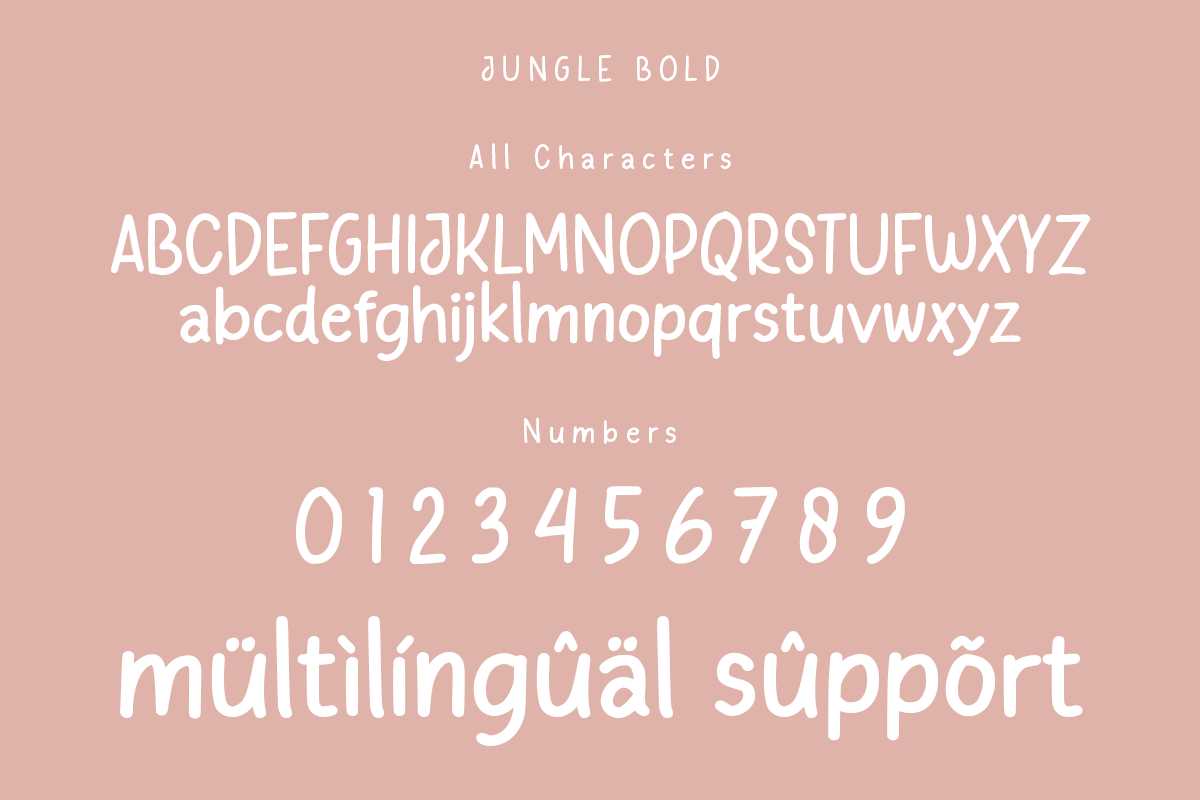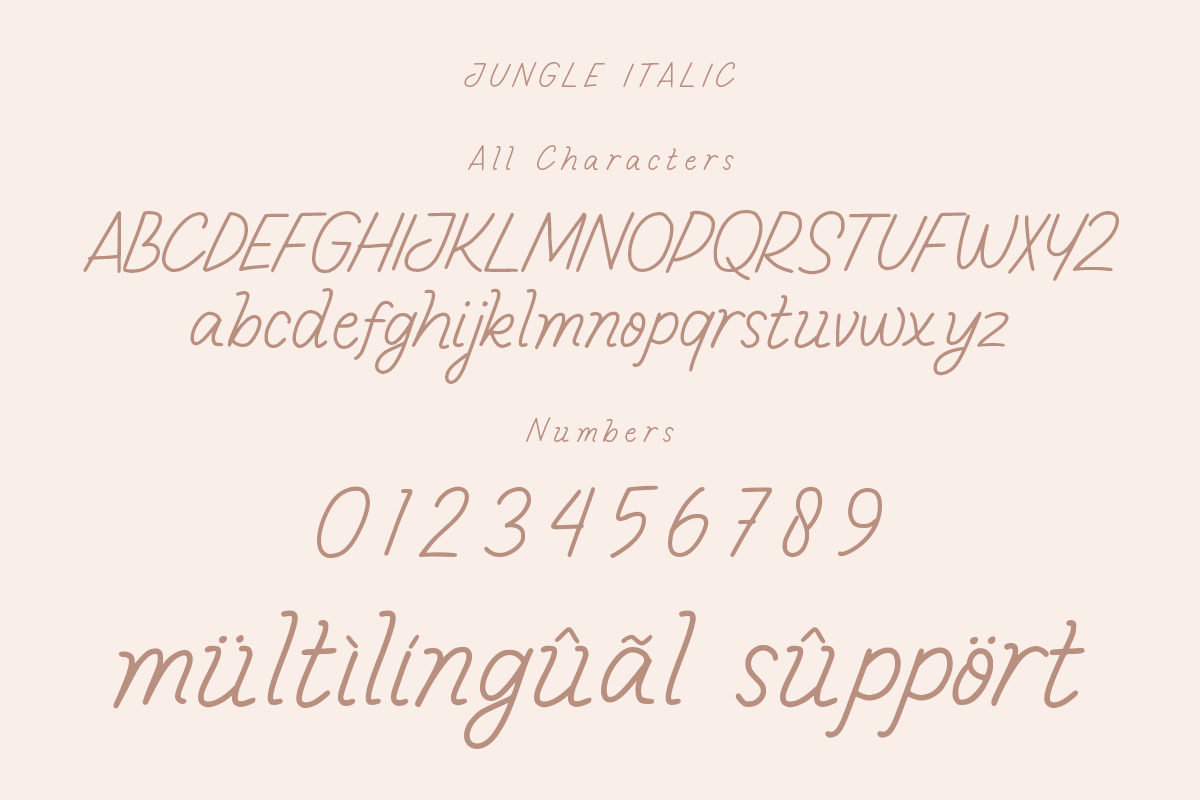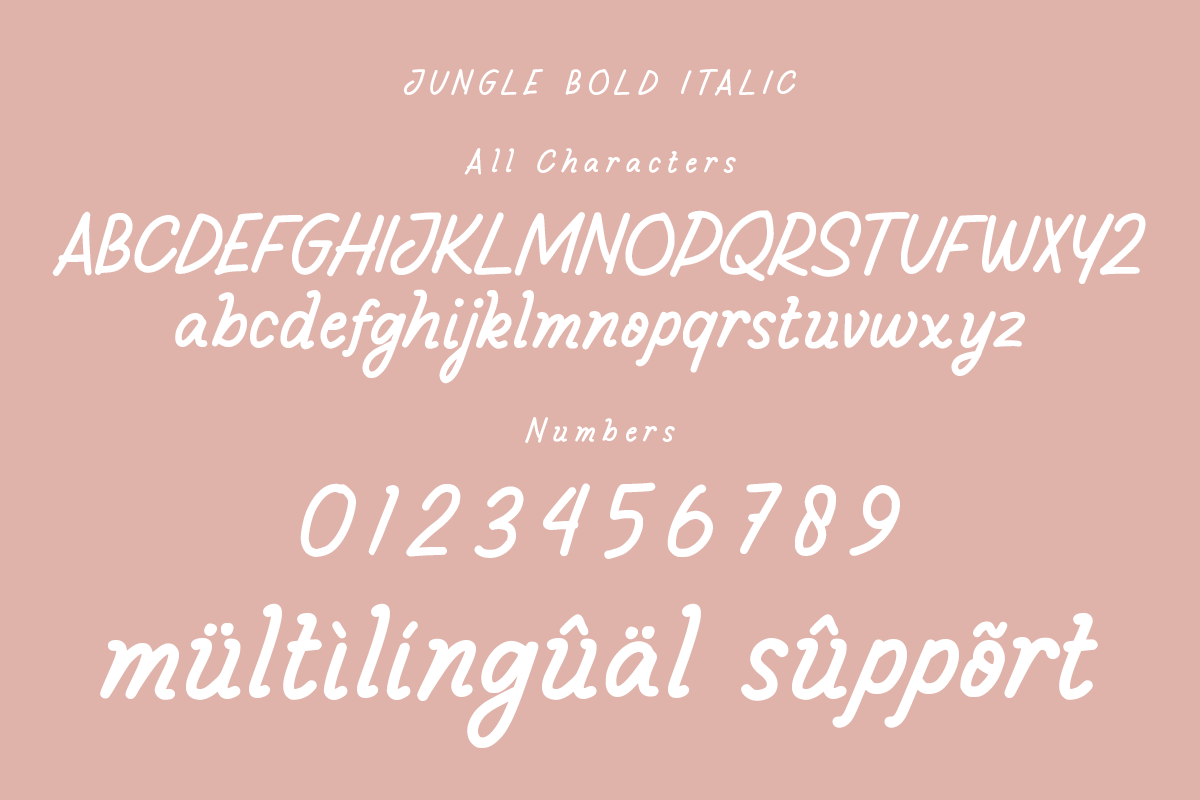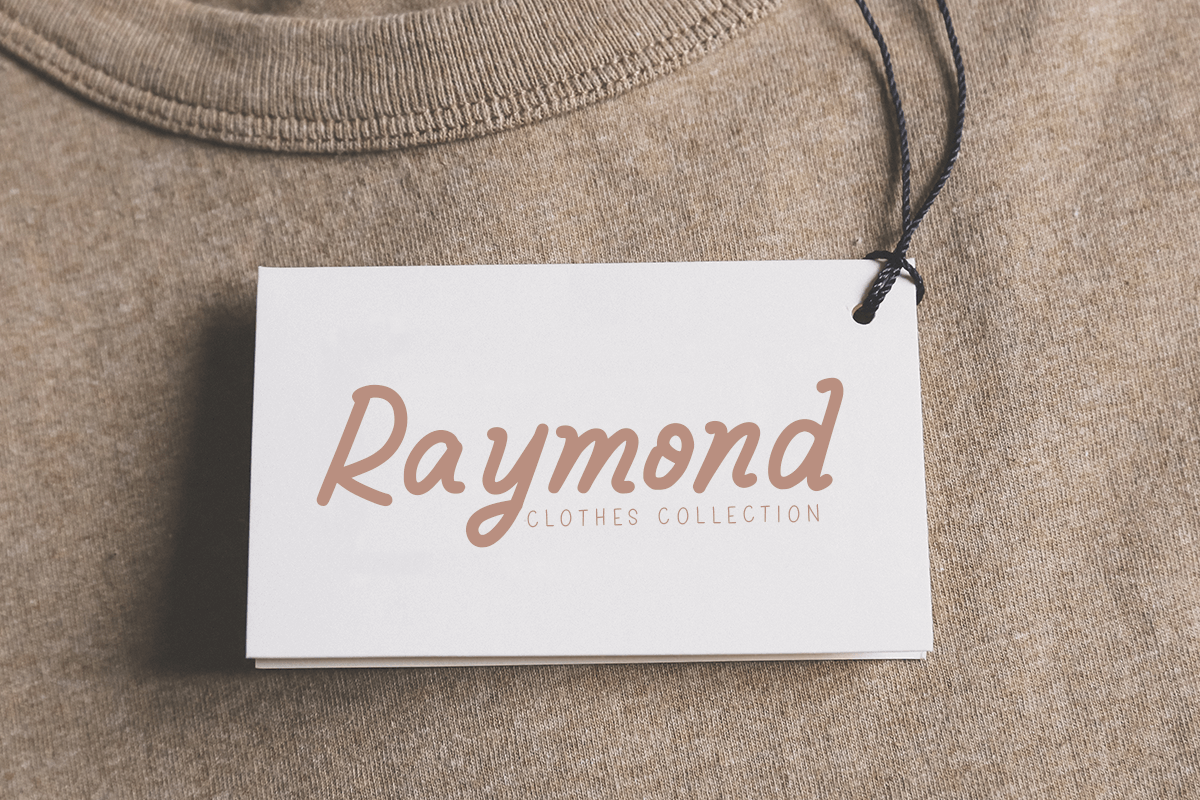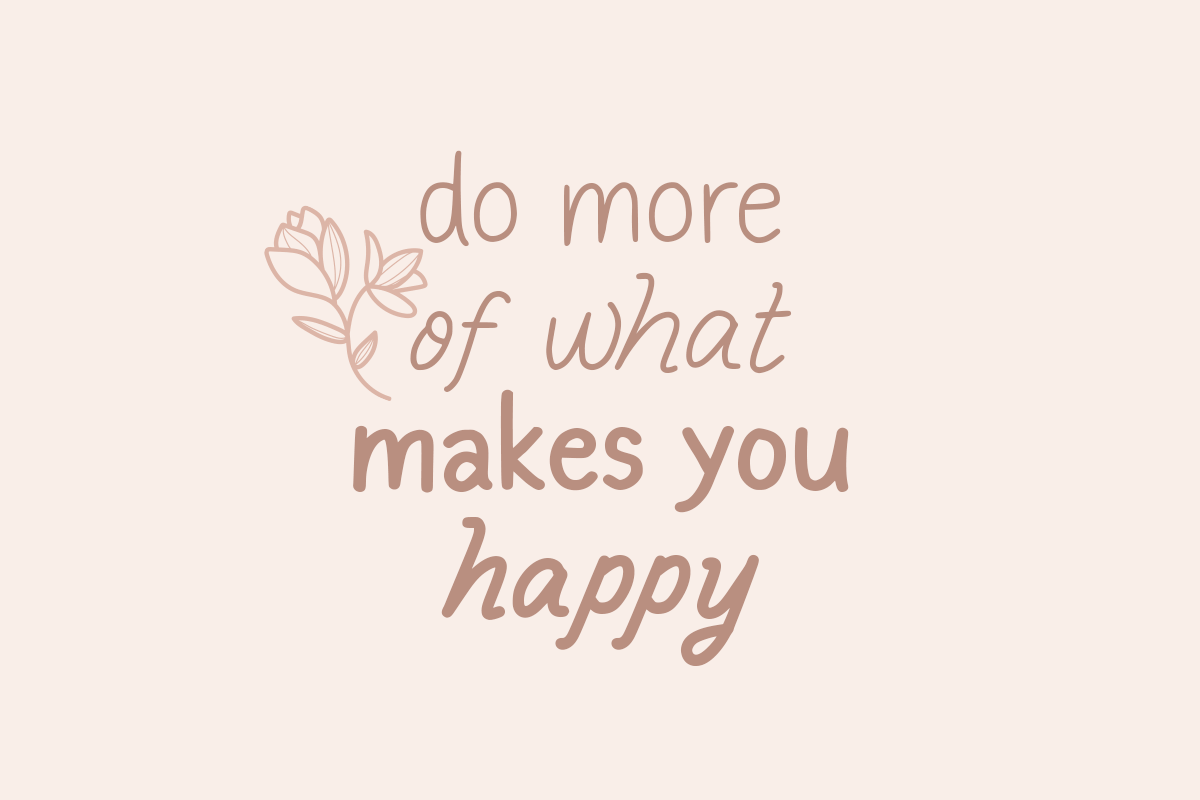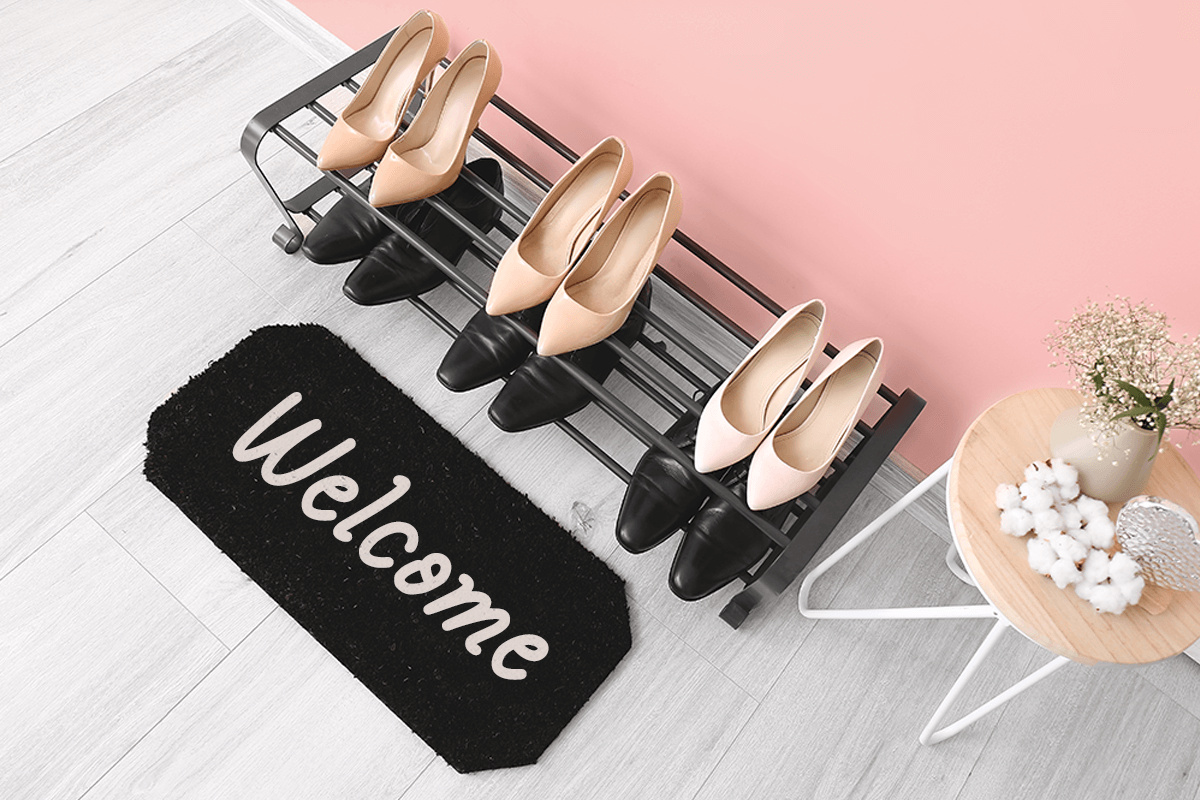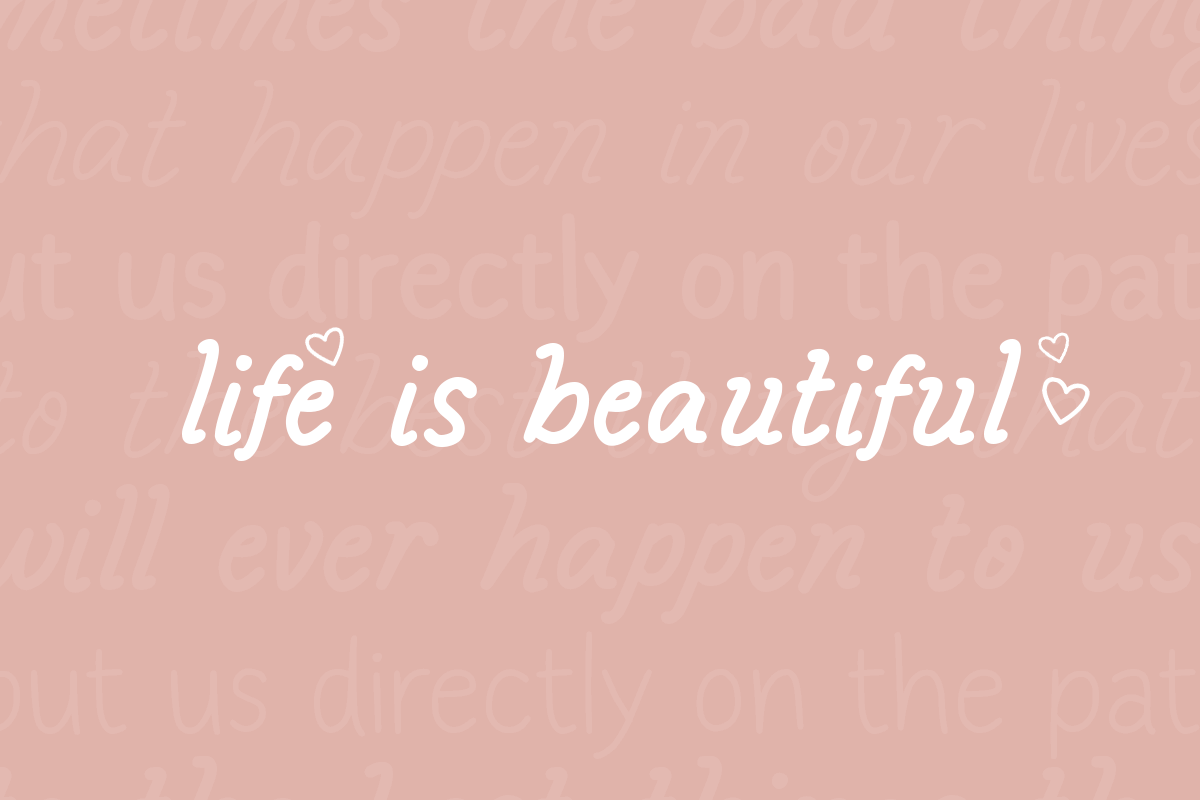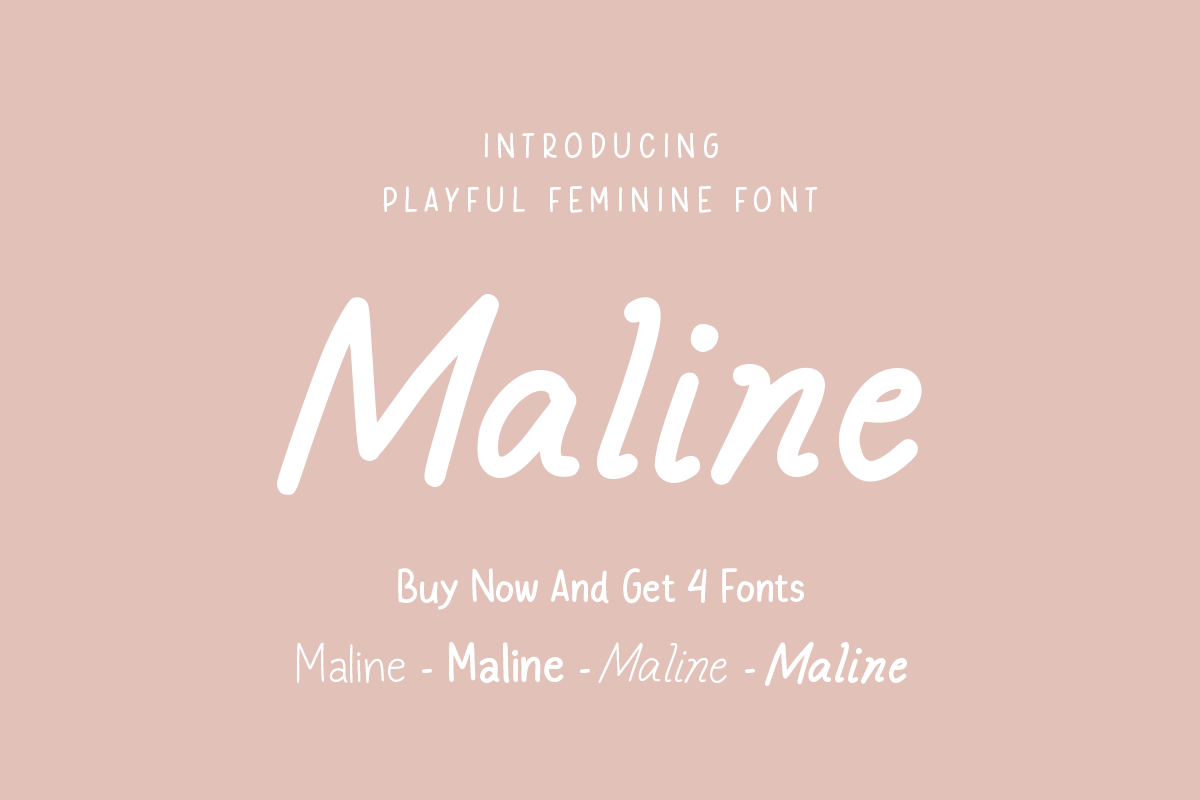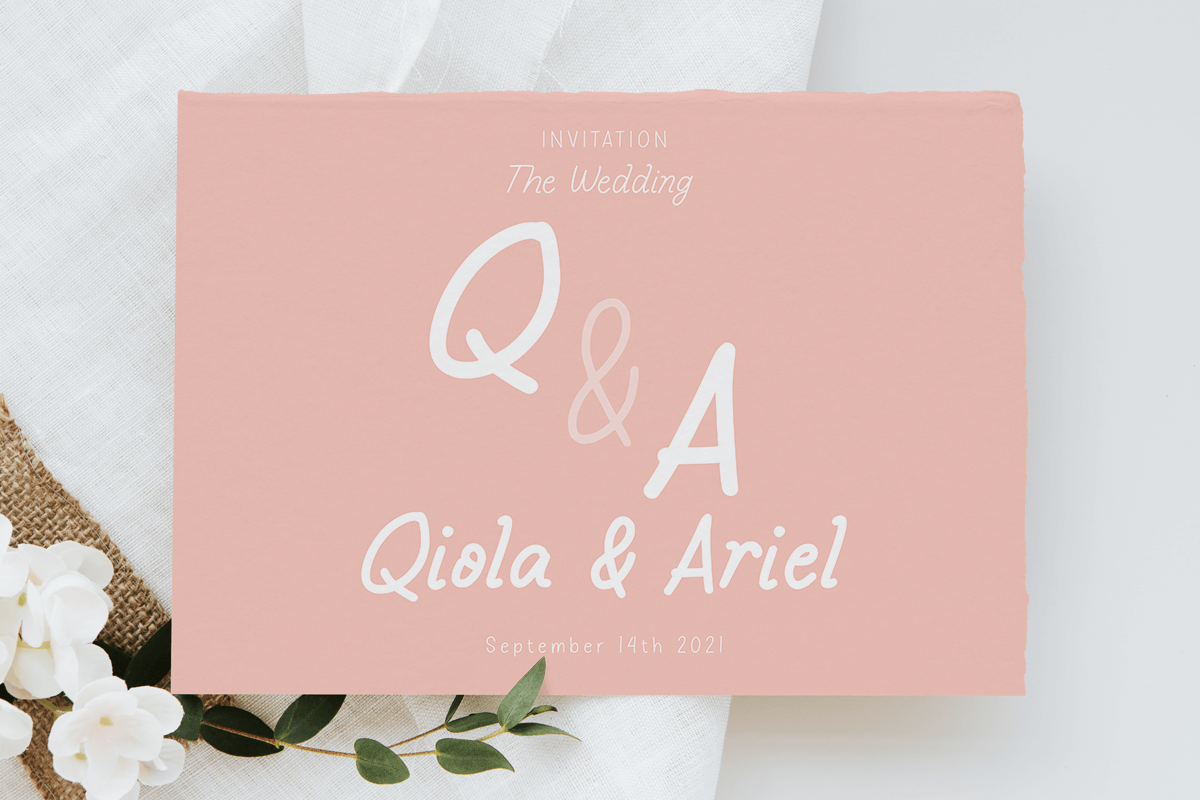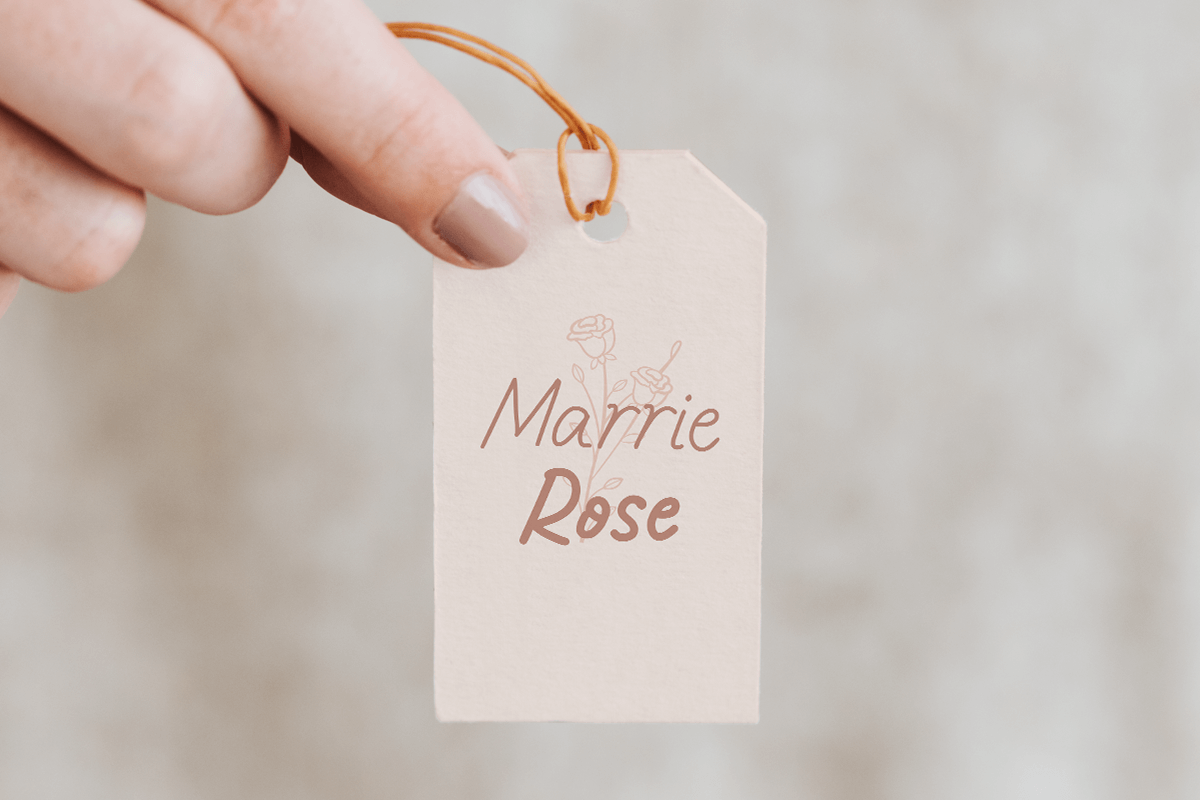
Maline
-Playful Feminine Font
Maline is a Handwritten Font with cute and feminine style. This font specially crafted for your branding, quotes design projects or cute logo, unique, modern for any designs such as print, merchandise, and so many more with easy to use but unique results are so playful and feminine.